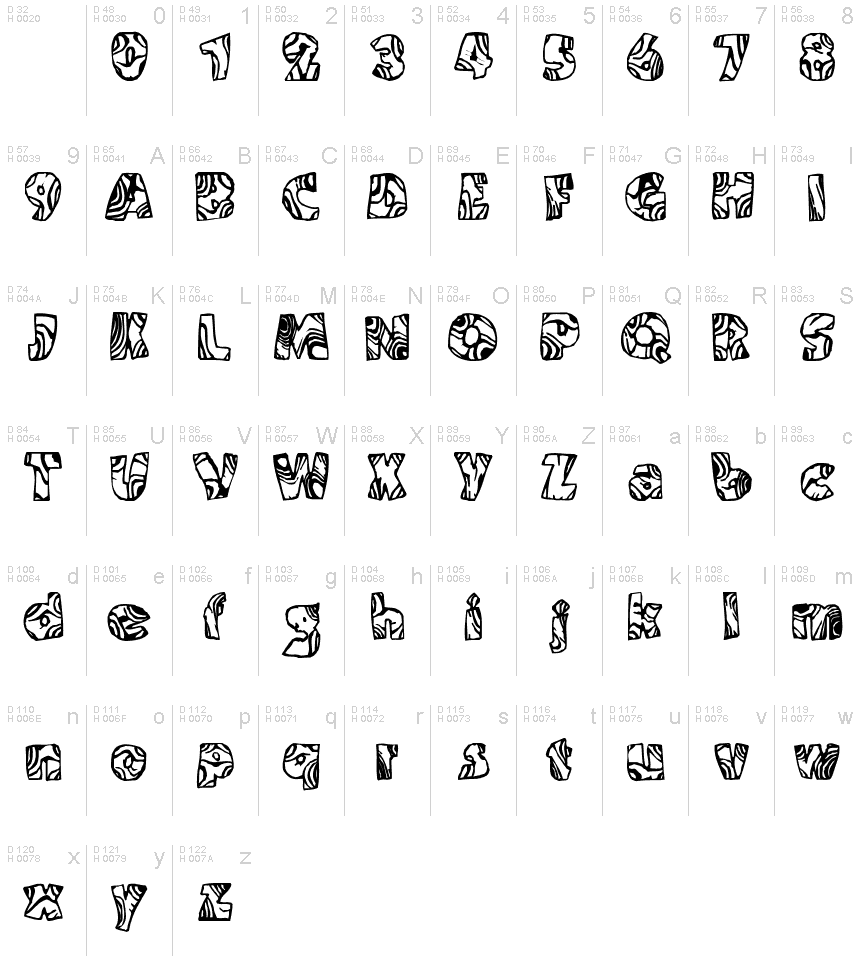
Swirled BRK
Swirled BRK, a striking creation by ÆNIGMA FONTS, stands out with its decorative flair and extra-bold presence. Crafted as a display font with a semi-expanded width, it boasts an aesthetic that combines robustness with whimsical curves, making each letterform an artistic statement in itself.
The playful swirls and unique twists embedded within the characters give Swirled BRK an energetic vibe that is bound to captivate viewers and add a dynamic touch to any creative project. Its decorative features exude charm and personality, ideal for designs that require a touch of extravagance without sacrificing readability.
Perfect for headlines, posters, branding, and anywhere you need a font with impact and character, Swirled BRK offers designers a versatile tool for crafting visually appealing messages that demand attention. Its style effortlessly bridges the gap between traditional bold typefaces and modern ornamental designs, ensuring your projects stand out in the sea of visual communication.
The playful swirls and unique twists embedded within the characters give Swirled BRK an energetic vibe that is bound to captivate viewers and add a dynamic touch to any creative project. Its decorative features exude charm and personality, ideal for designs that require a touch of extravagance without sacrificing readability.
Perfect for headlines, posters, branding, and anywhere you need a font with impact and character, Swirled BRK offers designers a versatile tool for crafting visually appealing messages that demand attention. Its style effortlessly bridges the gap between traditional bold typefaces and modern ornamental designs, ensuring your projects stand out in the sea of visual communication.